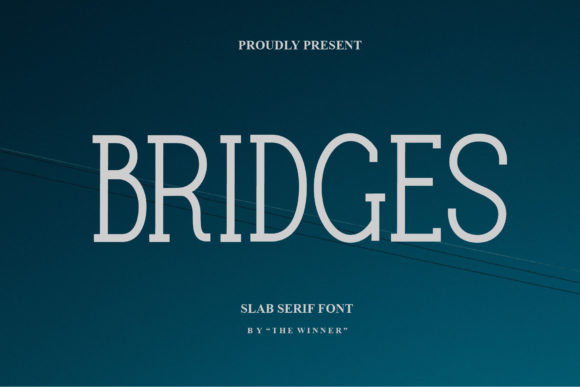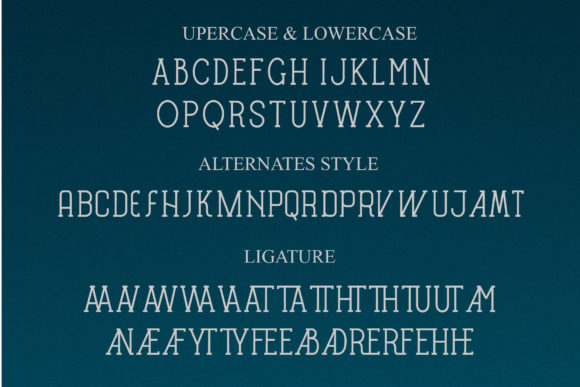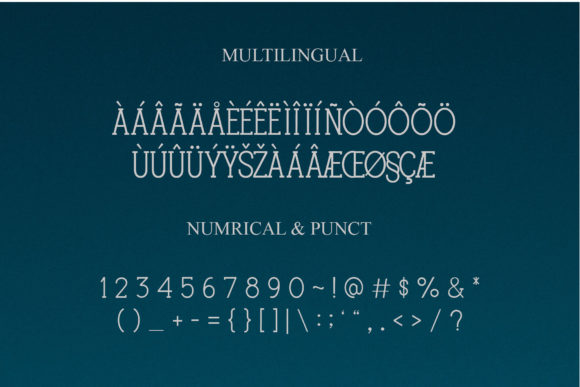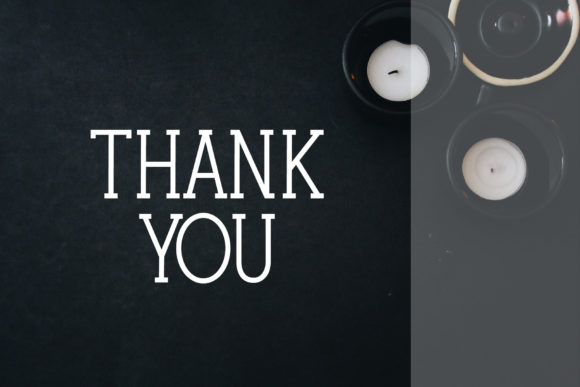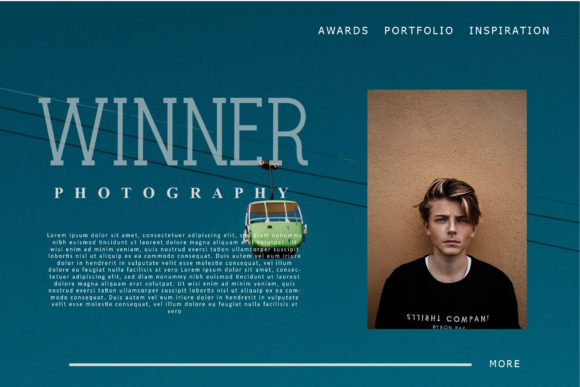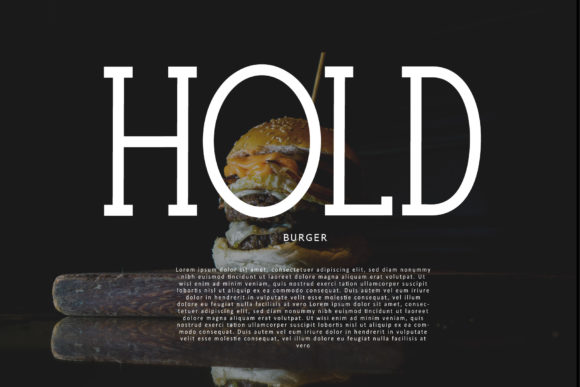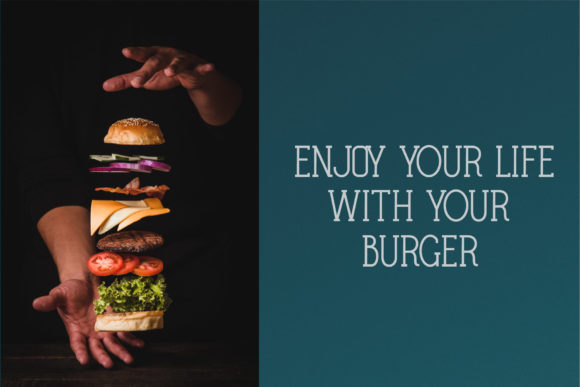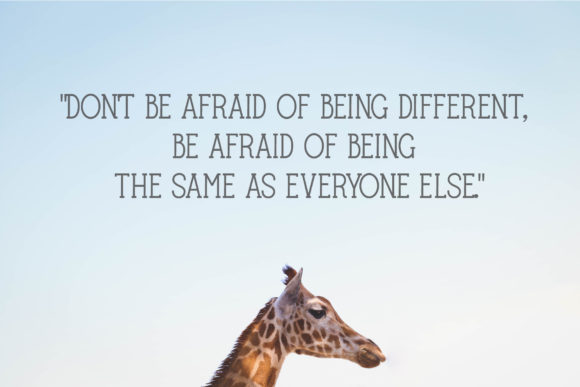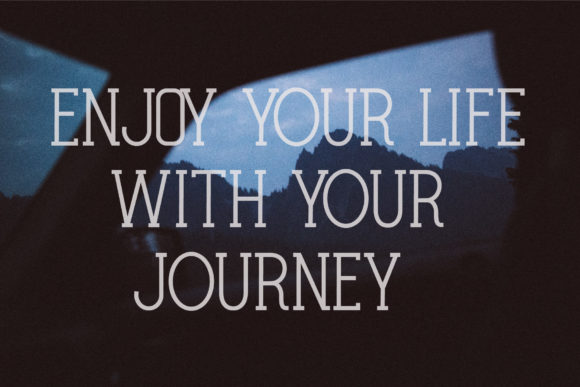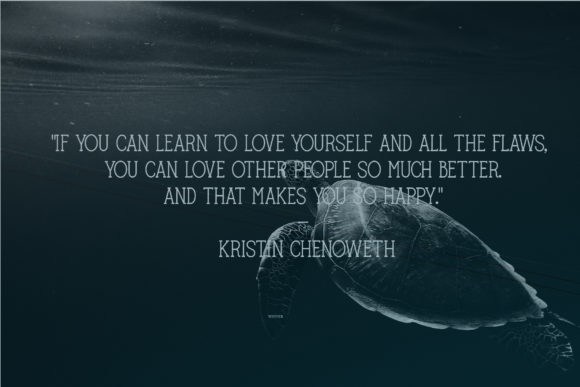
Bridges
Bridges: A Beautiful and Neat Slab Serif Font
Bridges is a beautiful and neat slab serif font perfect for a variety of design projects. Whether you’re working on branding, product packaging, invitations, quotes, T-shirts, labels, posters, or logos, this font will make your work more attractive and outstanding.
Key Features of Bridges
• Beautiful Design: Offers an elegant and clean look suitable for various applications.
• Slab Serif Structure: Features distinctive serifs that add character and style.
• Versatile Application: Ideal for both print and digital media projects.
• Impactful Presence: Designed to enhance the visual appeal of any creation.
Ideal Uses for Bridges
Bridges’ unique characteristics make it particularly well-suited for:
When incorporating Bridges into your designs, consider these tips:
• Use for headlines or short blocks of text to showcase its neat style.
• Utilize its versatility across various creative projects to enhance visual appeal.
Bridges is an excellent choice for designers looking to add a beautiful and neat slab serif font to their typographic toolkit. Its ability to enhance various design projects makes it stand out in the world of typography. Whether you’re working on branding, creating layouts for magazines, or developing content that requires a touch of elegance, Bridges offers the perfect blend of style and functionality.
Furthermore, Bridges’ unique design allows it to shine in various contexts. From vintage-inspired designs with a modern twist to more contemporary layouts that need a touch of uniqueness, this font can elevate your projects. Its striking yet functional style works particularly well in designs that require a thoughtful and engaging mood.
In conclusion, Bridges is a font that truly captures the essence of creativity and impact in typography. Its ability to work well in both minimalist projects and more elaborate layouts showcases its flexibility. For those looking to add a touch of unique charm to their work, Bridges can even enhance themed creations with its distinctive style. It’s the perfect choice for designers seeking to make a strong, stylish impact across a wide range of creative projects.